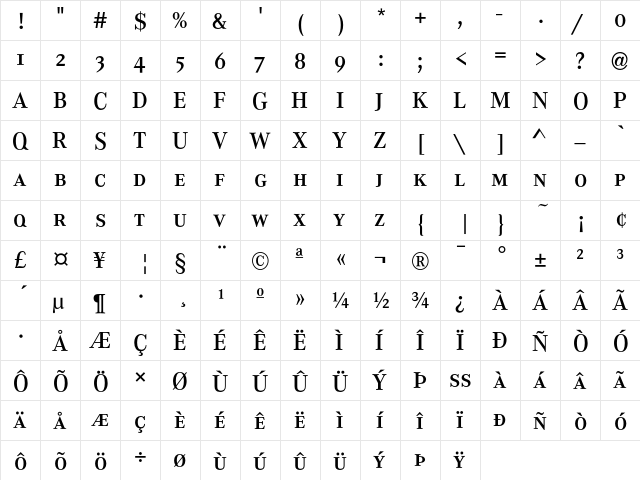
CorporateASC Demi
Design Context for CorporateASC Typeface
CorporateASC is a composed and adaptable typeface that performs quietly and consistently across a wide range of design contexts.